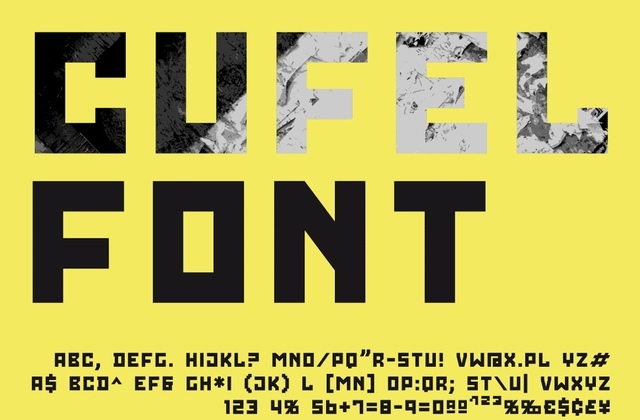
CUFEL Font
CUFEL Font is perfect for modern tech startup branding, innovative software interfaces, contemporary digital agencies, cutting-edge product packaging, progressive design studios, futuristic gaming platforms, advanced technology presentations, and forward-thinking corporate identities. This dynamic typeface excels in applications where technological innovation and contemporary sophistication are essential for creating distinctive and future-focused brand experiences that embody digital advancement.
What makes CUFEL Font truly exciting is its bold embodiment of technological evolution and digital innovation that captures the precise geometry of advanced engineering and the sleek aesthetics of contemporary user interface design. The font features sharp, angular letterforms with technological character details and systematic construction that mirror the efficiency of modern algorithms and the sophisticated simplicity of cutting-edge digital products. Its innovative personality and tech-forward character create an immediate sense of advancement and digital competence that resonates with audiences seeking reliable technology solutions and progressive digital experiences. The typeface's futuristic appeal and technological precision make it perfect for brands wanting to convey innovation, efficiency, and connection to the evolving landscape of digital transformation and technological leadership.
The CUFEL Font family includes multiple weights from Light to Bold, complemented by technological alternates and innovation-inspired decorative elements. The font offers comprehensive character sets with tech symbols, digital indicators, and futuristic styling details that enhance its contemporary aesthetic. Additional graphic elements including circuit patterns, digital motifs, technological ornaments, and innovation flourishes provide designers with complete branding tools rooted in digital culture and technological advancement principles.
For designers seeking a contemporary technology-focused typeface, CUFEL Font Free Download represents an outstanding choice that brings digital sophistication to modern brand communications. Whether you're developing identities for technology companies, designing materials for digital service providers, or creating marketing campaigns for innovative products, this font delivers the technological credibility that appeals to tech-savvy audiences and forward-thinking consumers. Its innovative character and digital appeal make it particularly effective for brands in technology, software, and digital services industries. The font's ability to convey precision, innovation, and technological excellence makes it an invaluable asset for creating brand communications that celebrate digital advancement, technological innovation, and the transformative power of modern technology in solving complex problems and enhancing human capability through intelligent design and efficient digital solutions.